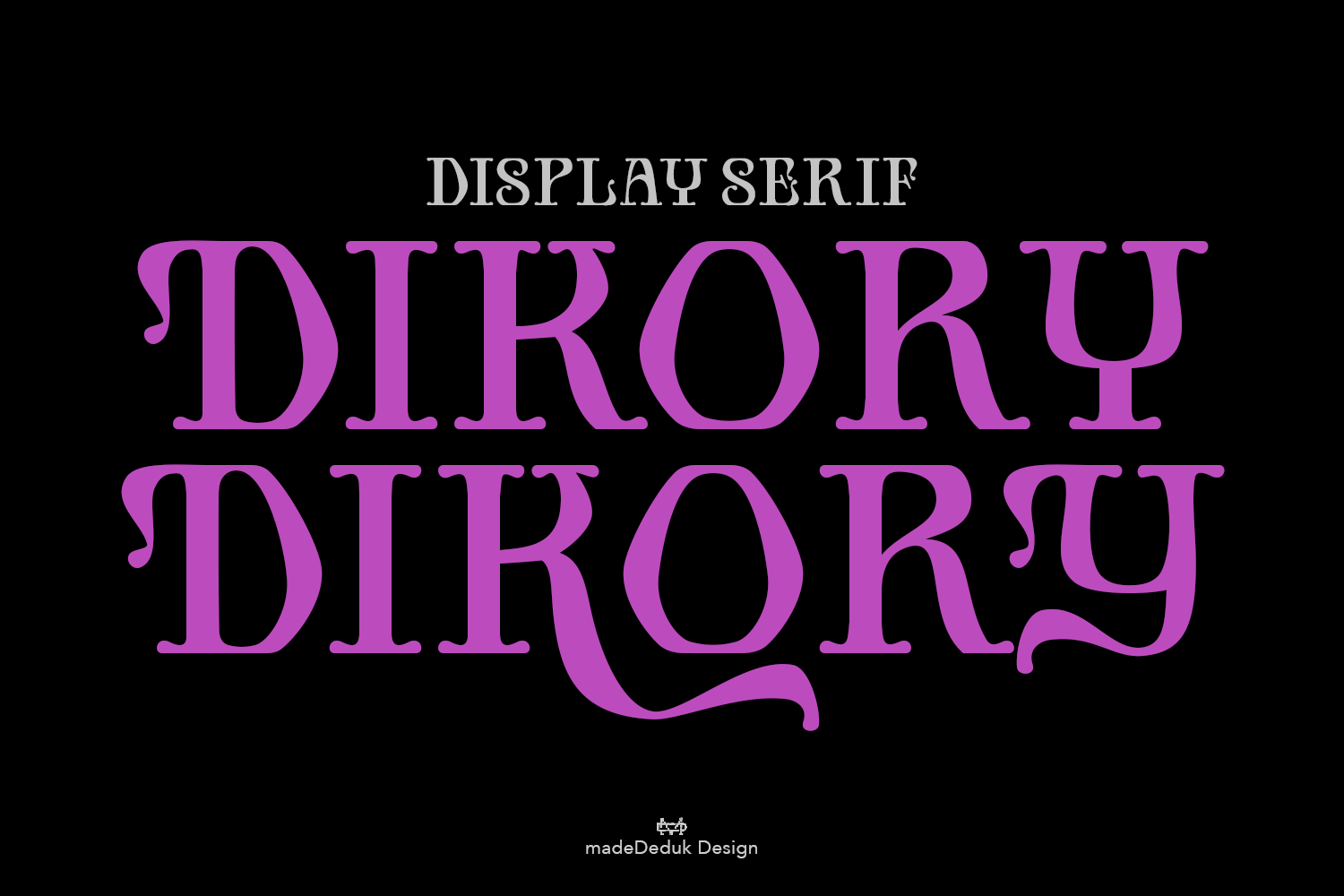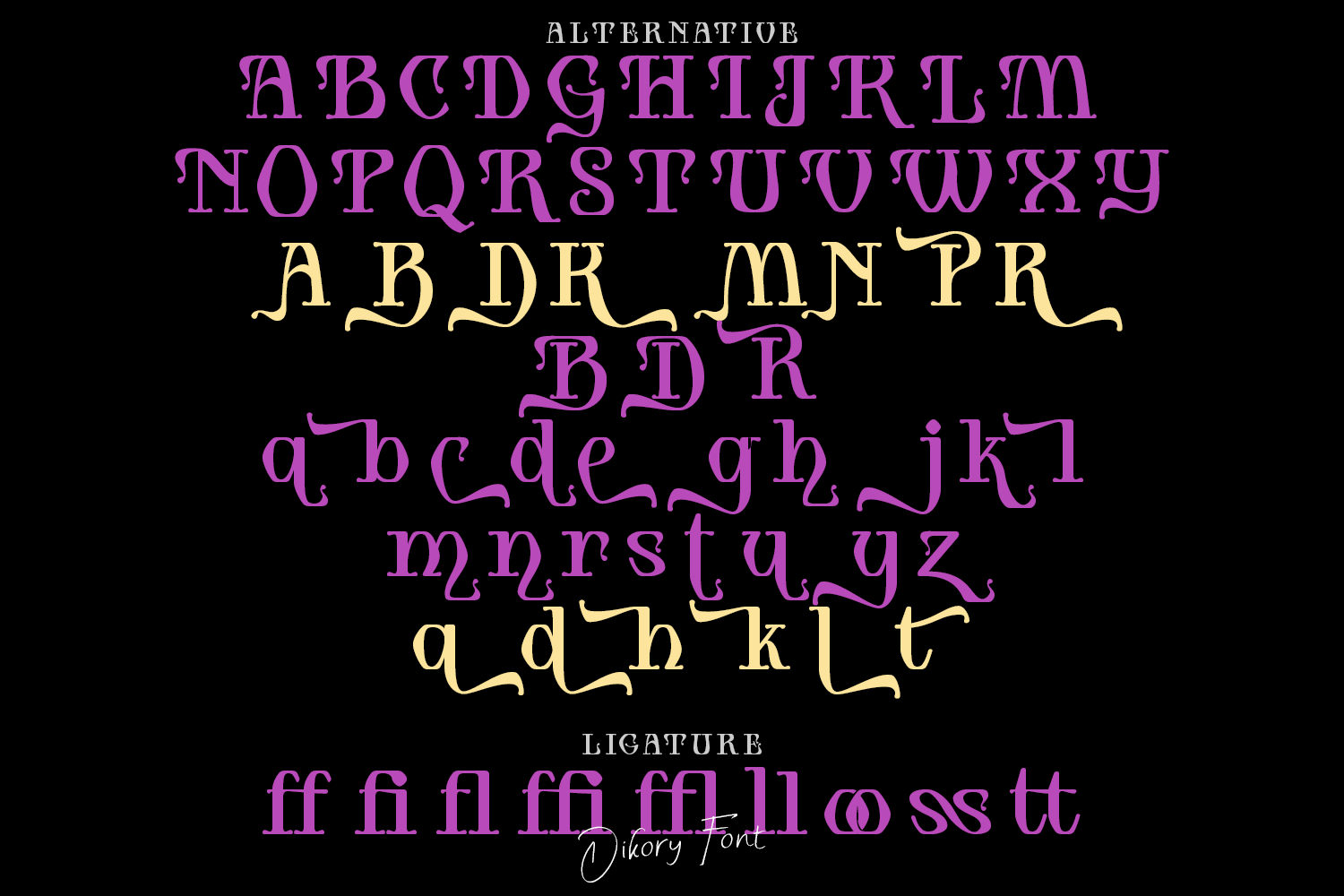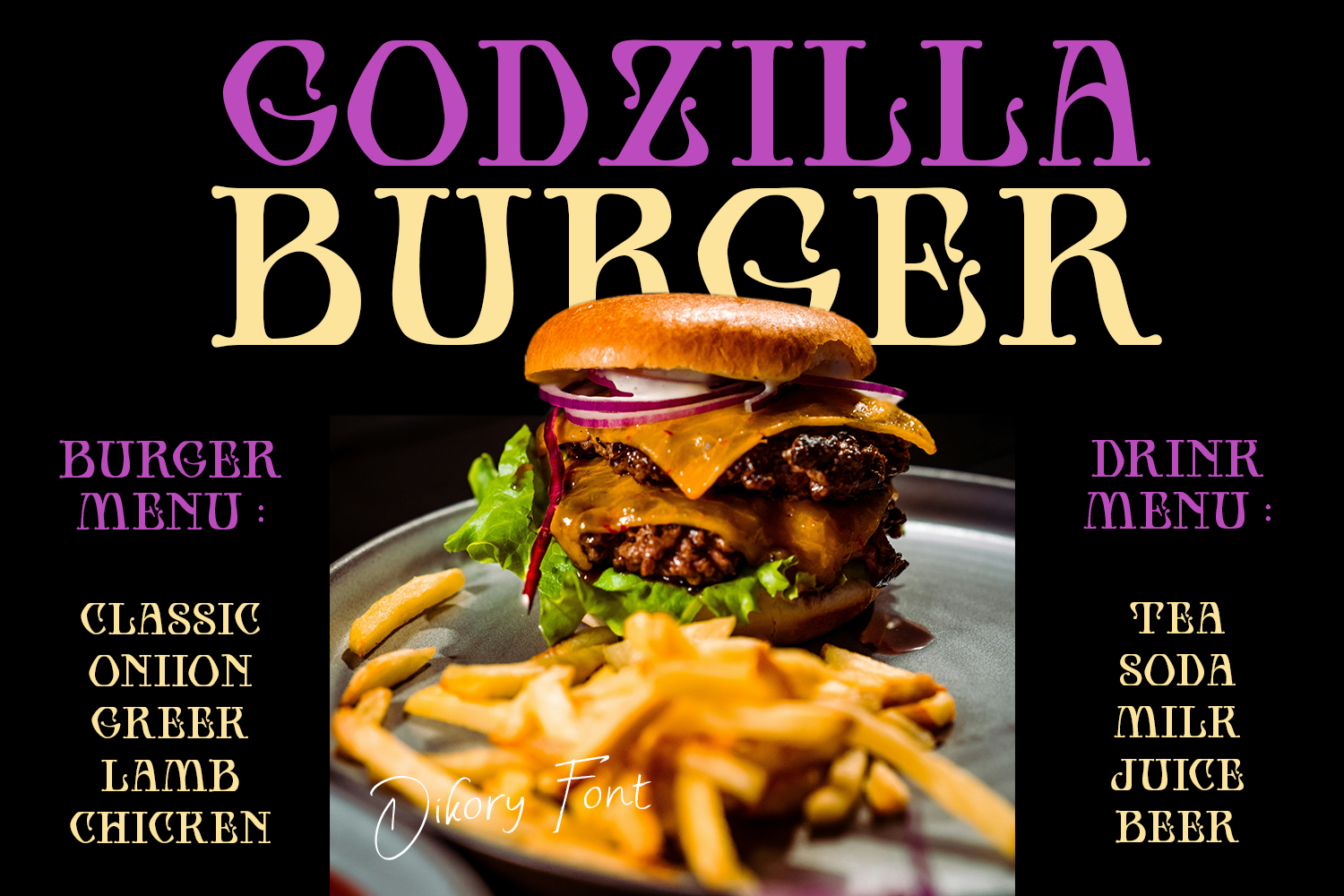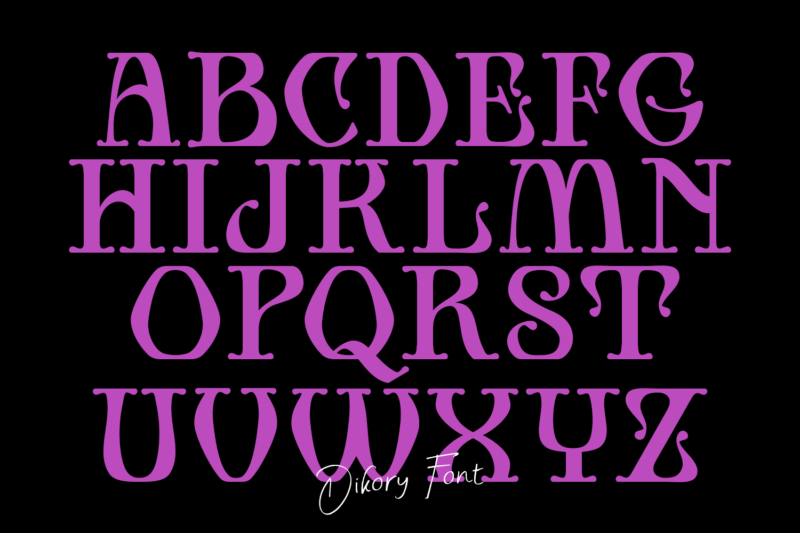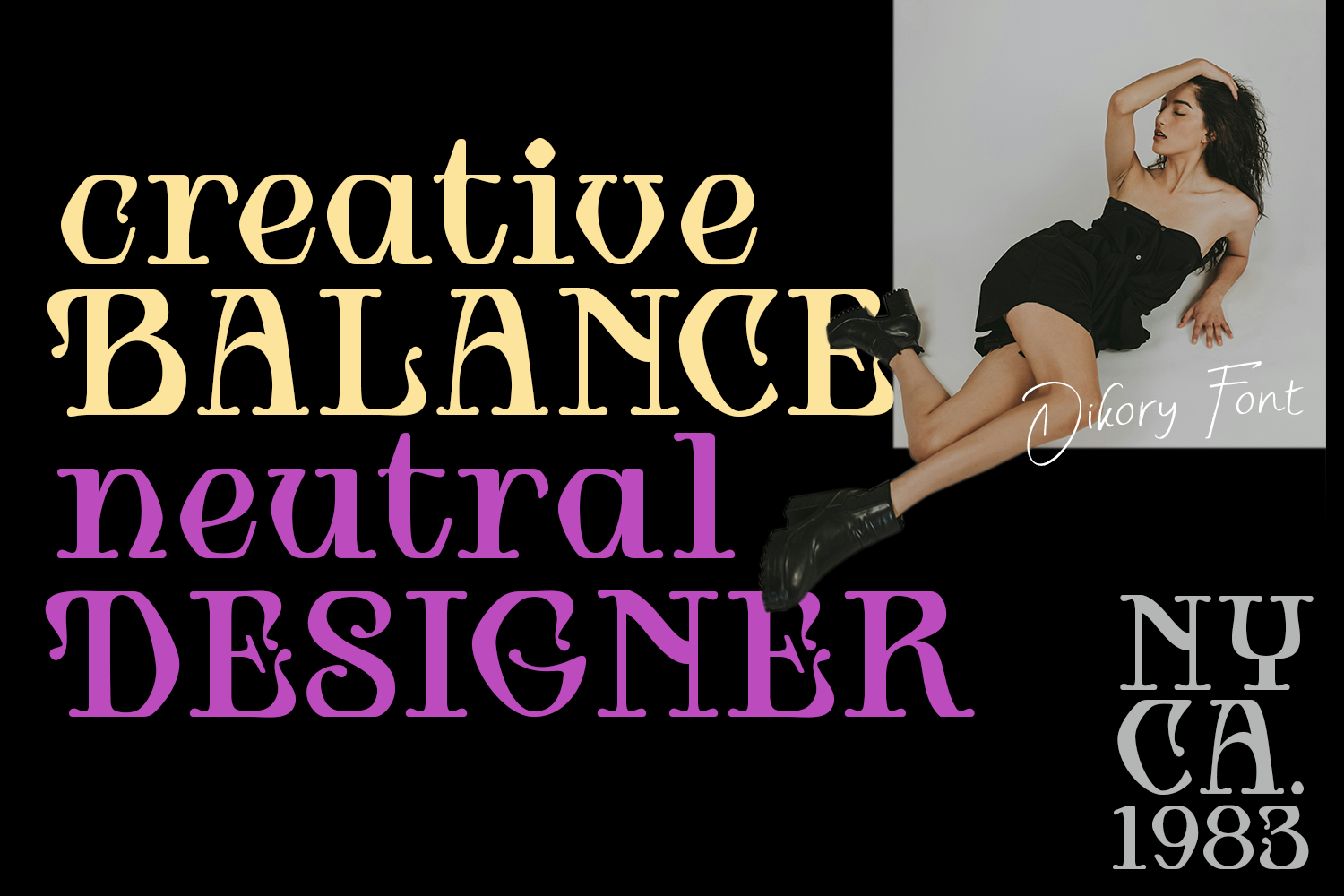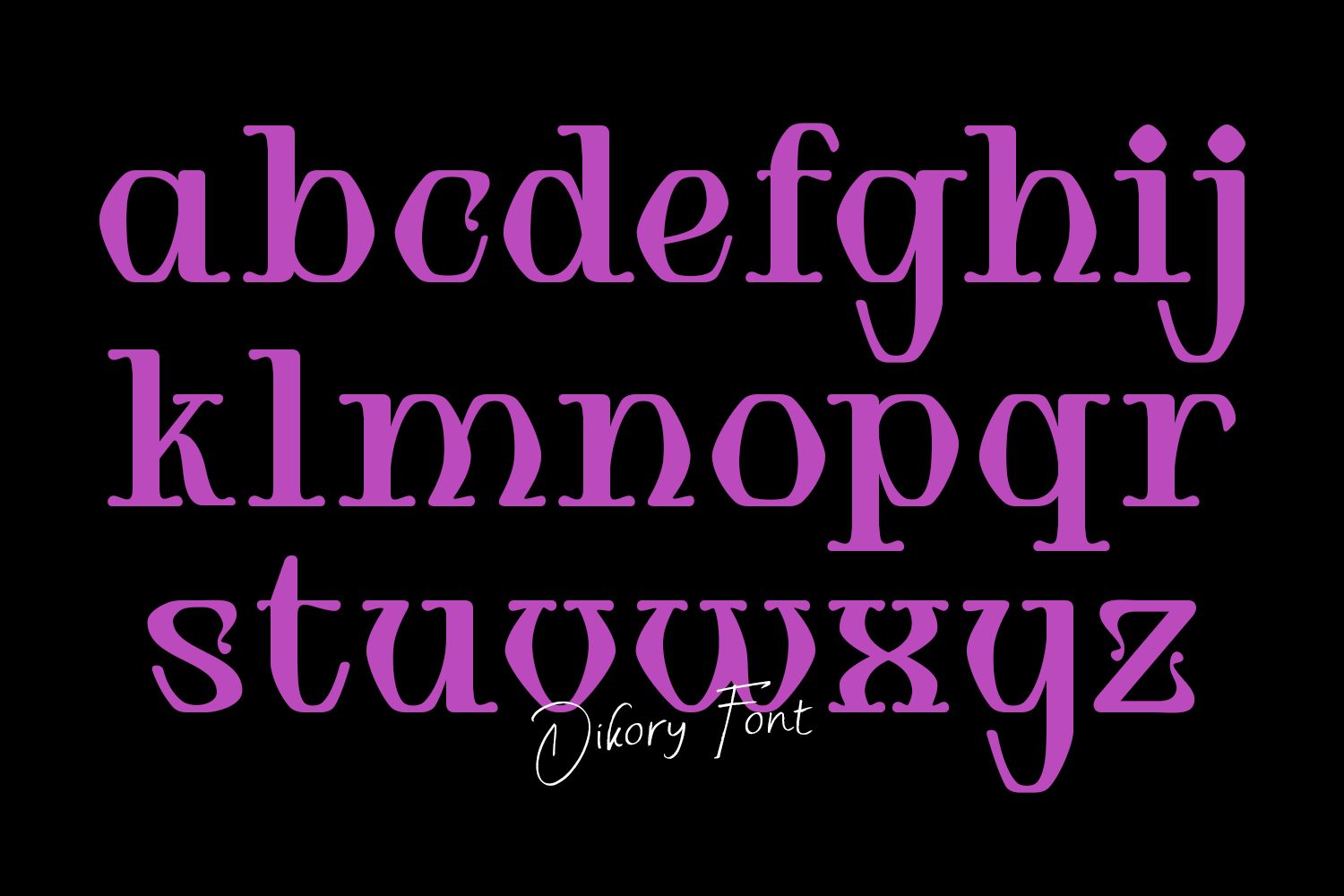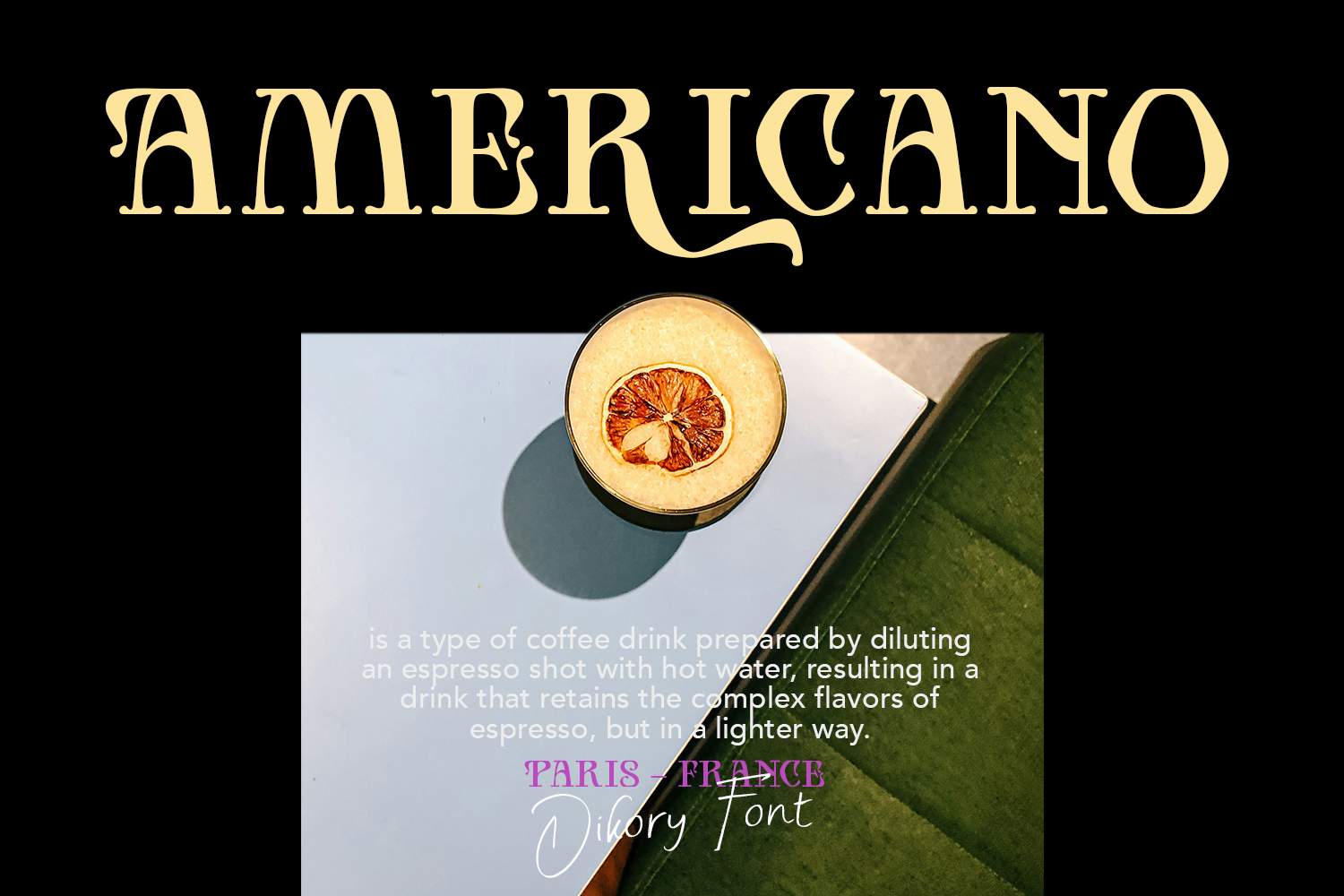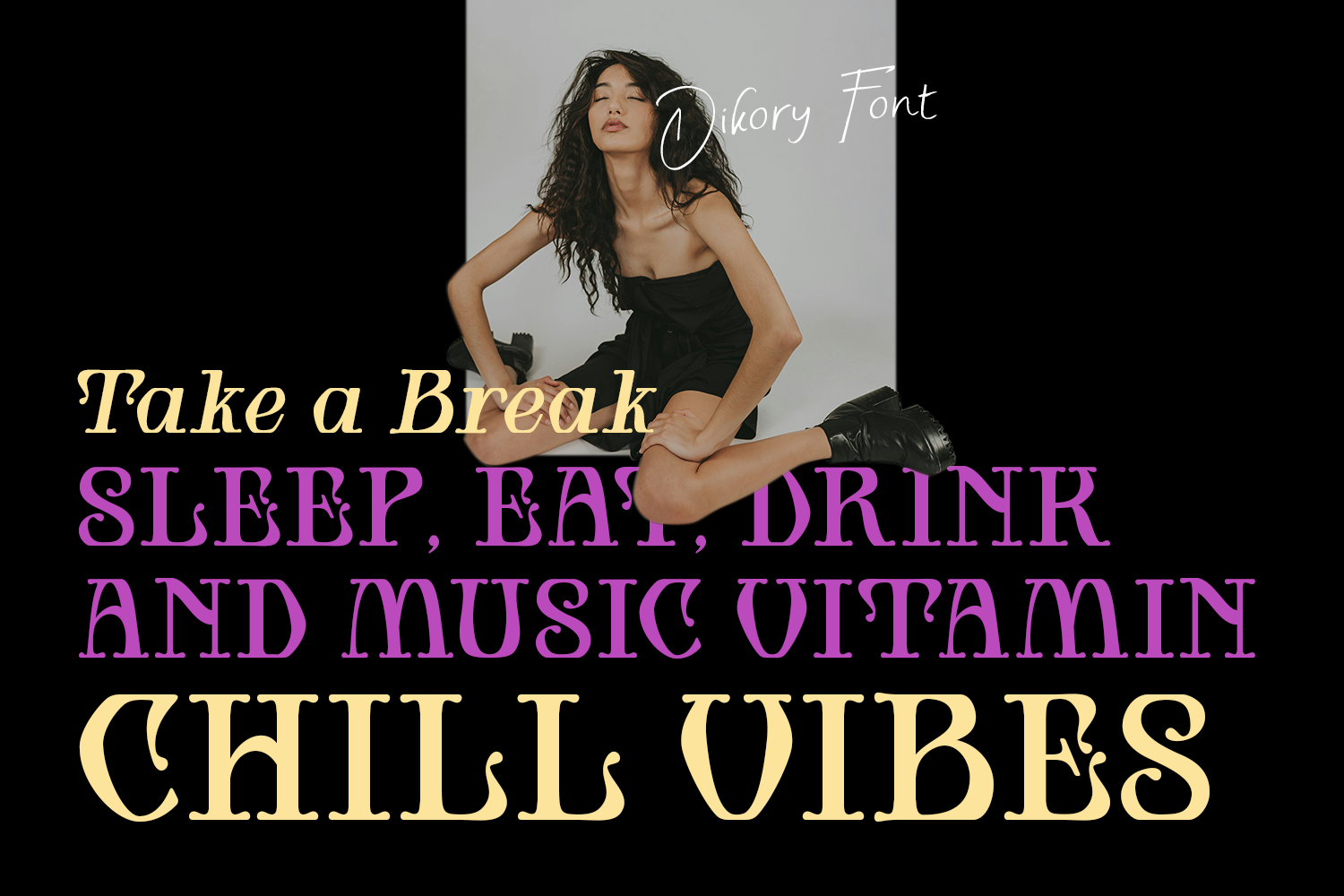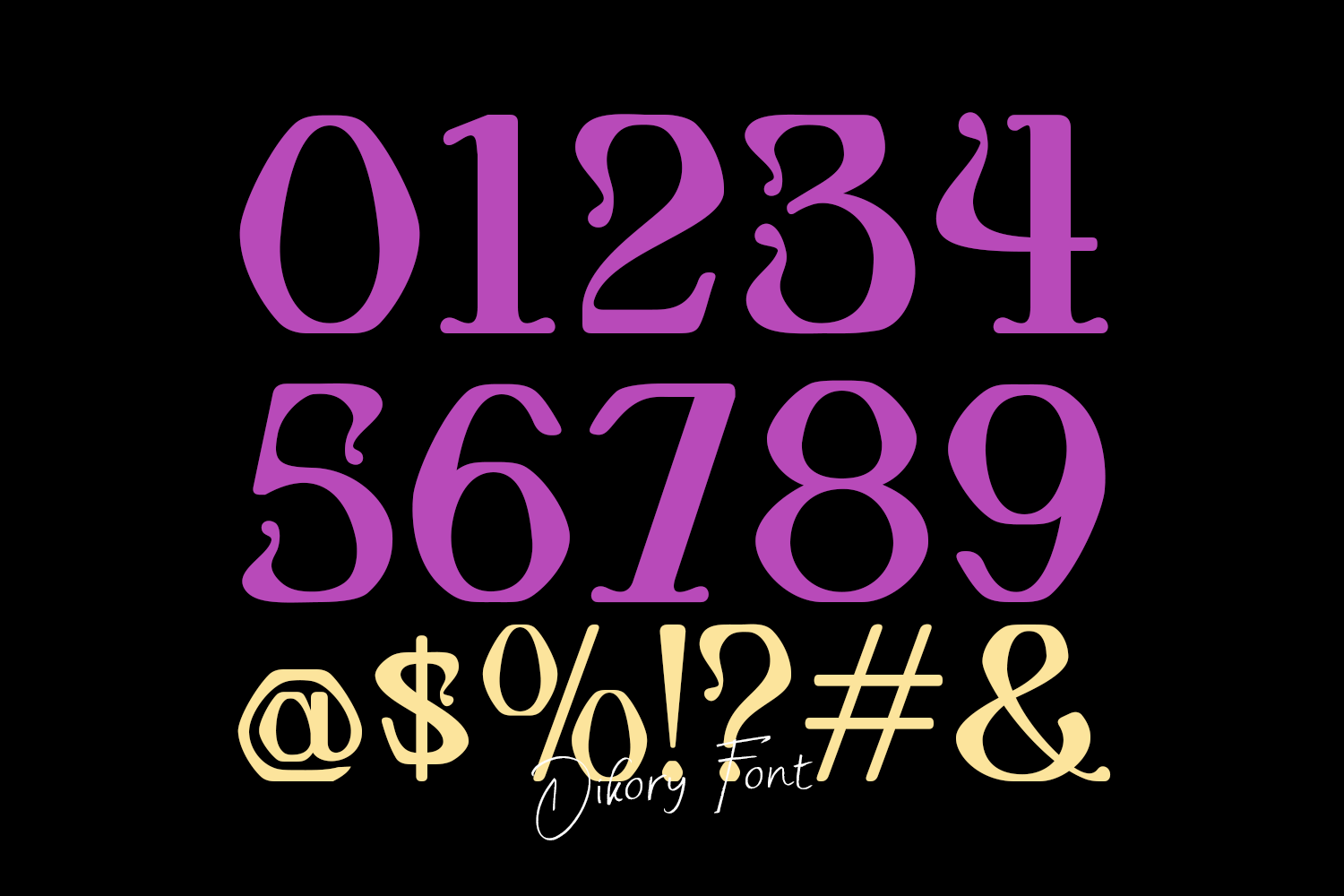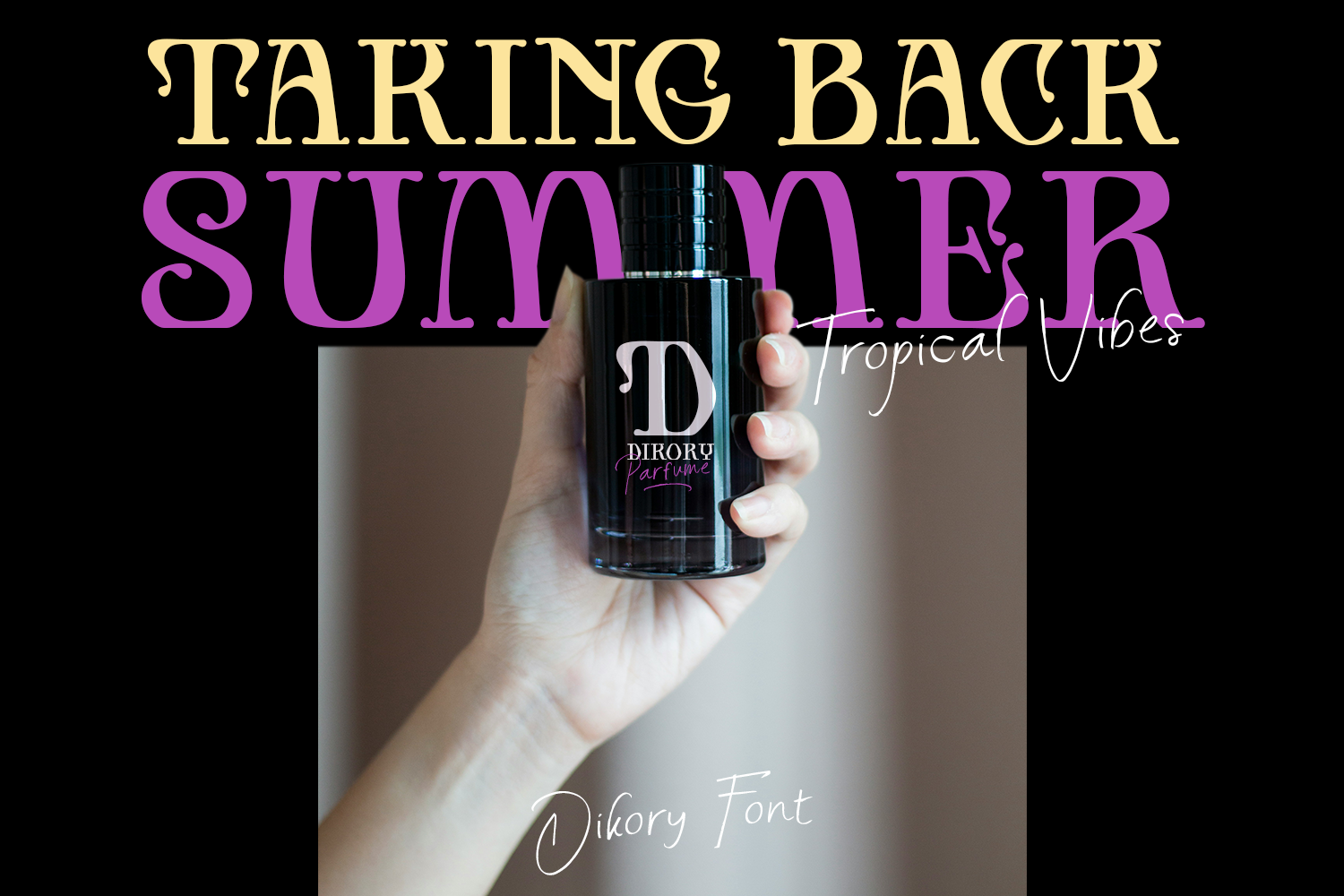
Dikory Display Serif
Dikory is a classic display serif, come with single weight, legible and expressive shapes. A lot of stylish alternates characters and ligature will make this font suitable for your any project design.
• Uppercase & Lowercase
• Number & Symbol
• International Glyphs
• Multilingual support
• Alternative
• Ligature